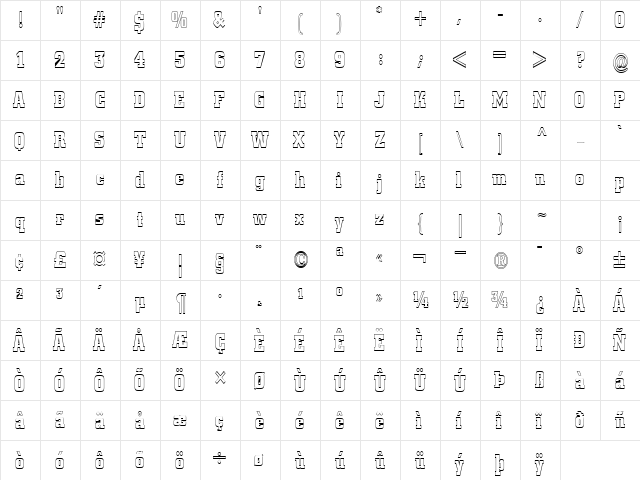
Borghs-Hollow-Condensed Normal
Design Context for Borghs-Hollow-Condensed Typeface
Borghs-Hollow-Condensed takes a measured approach to typography — its balanced proportions and neutral character make it a reliable workhorse for both digital and print work. The condensed width makes it efficient for tight spaces without sacrificing legibility.
Pro Tip: Pair Borghs-Hollow-Condensed with a font of contrasting weight or personality to build a more expressive typographic hierarchy.